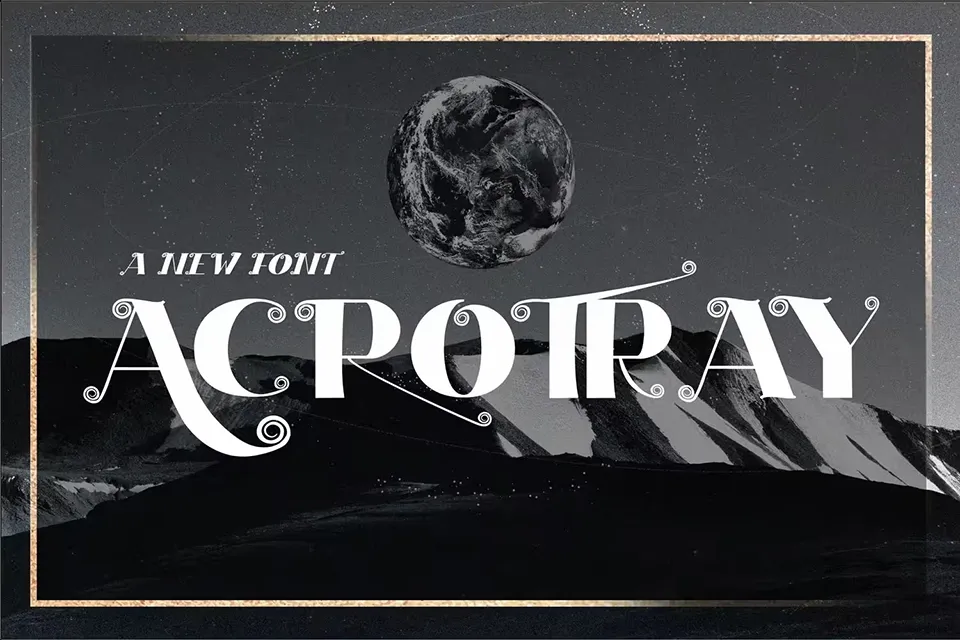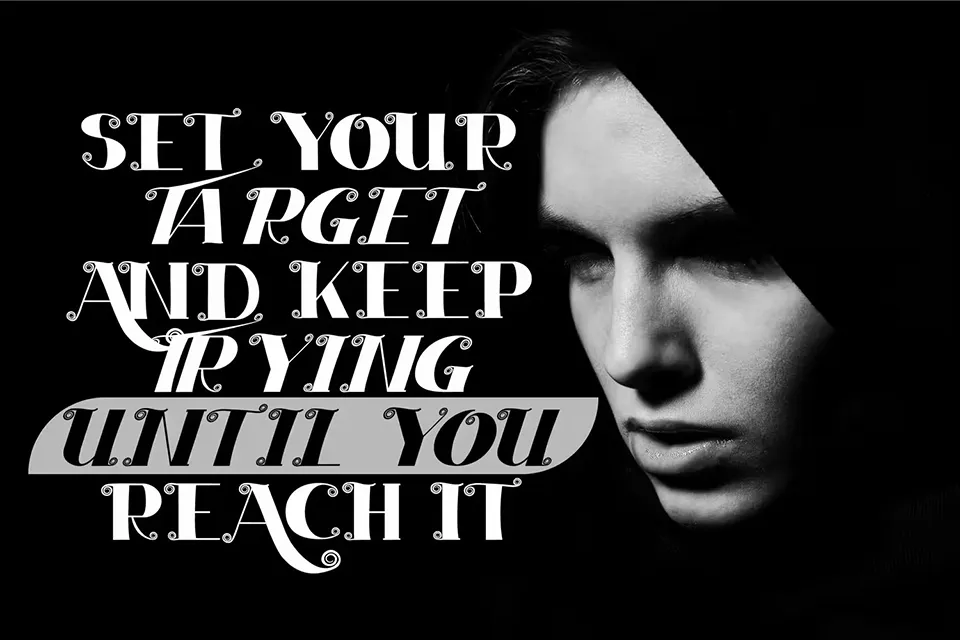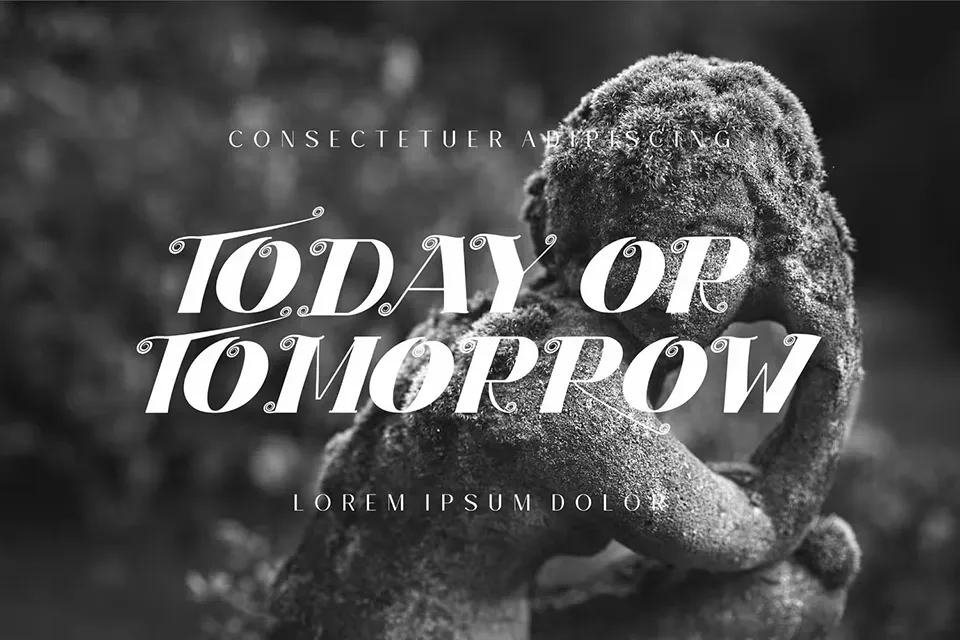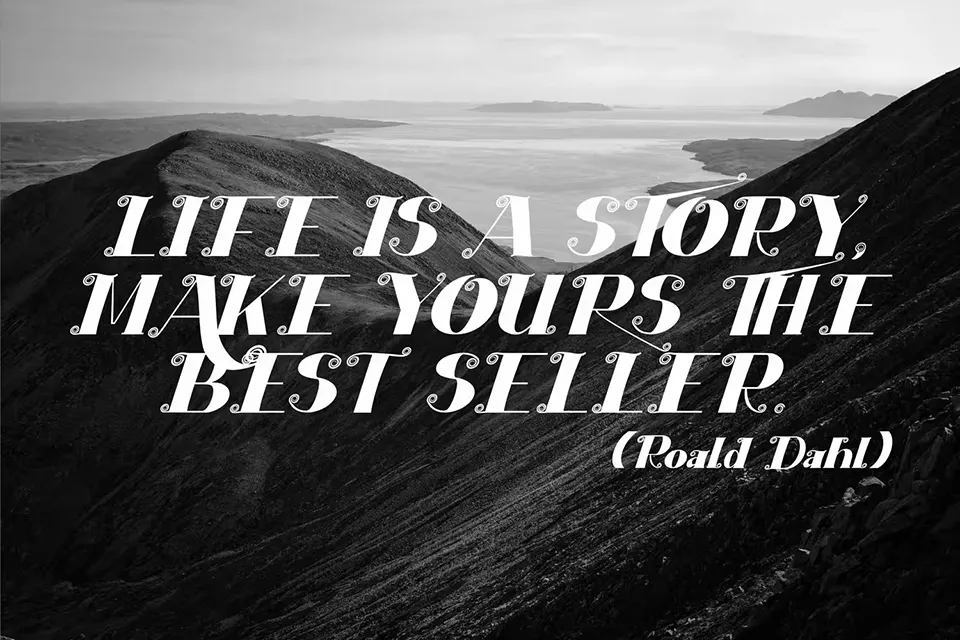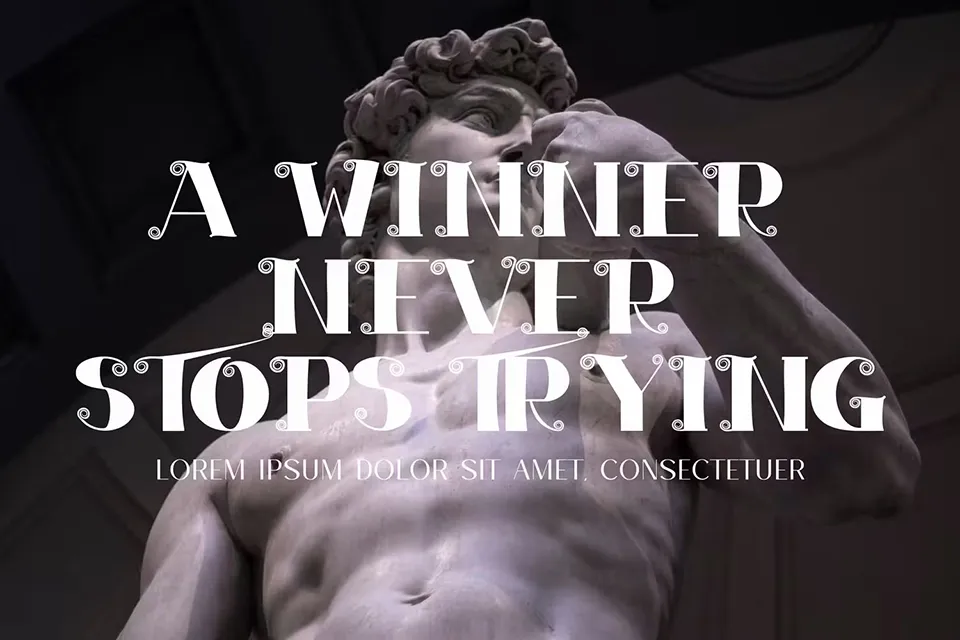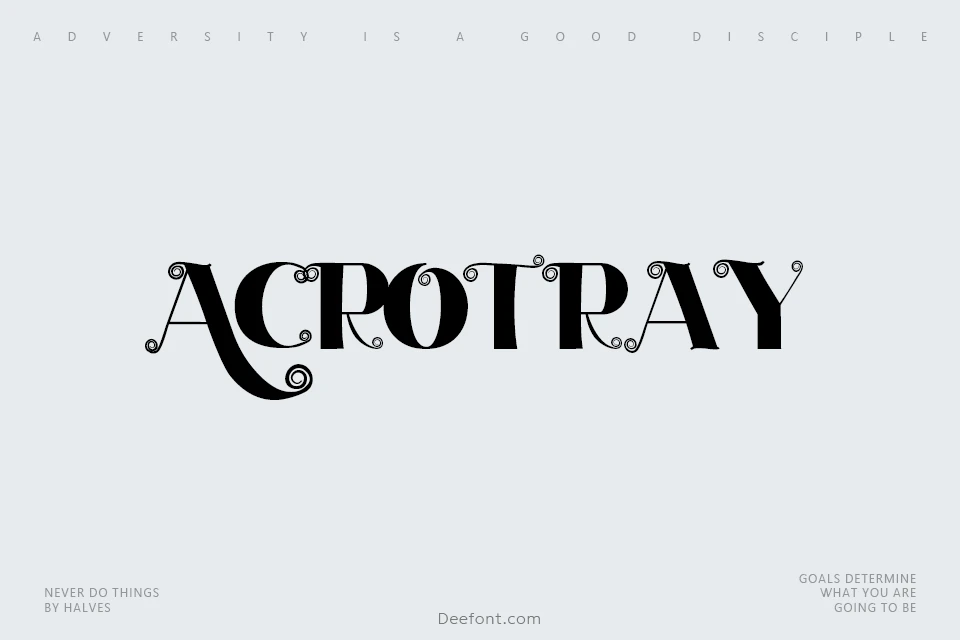
Acrotray Font
Acrotray Font font is a highly stylized serif typeface featuring elegant looping details in its uppercase characters. Perfect for logos, invitations, and branding, this decorative font brings a unique and sophisticated flair to any design project.